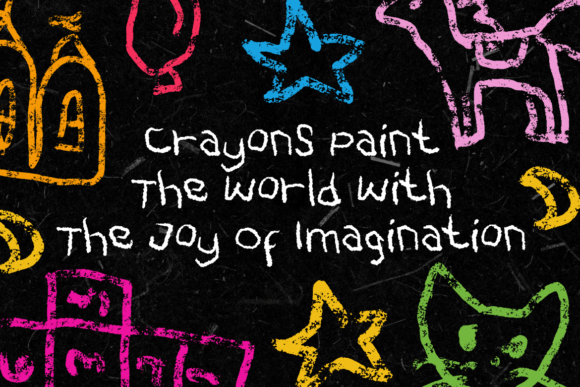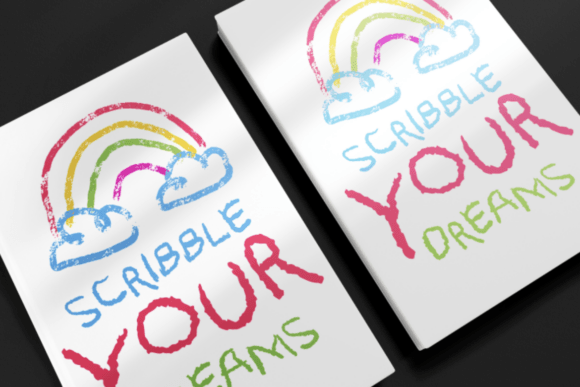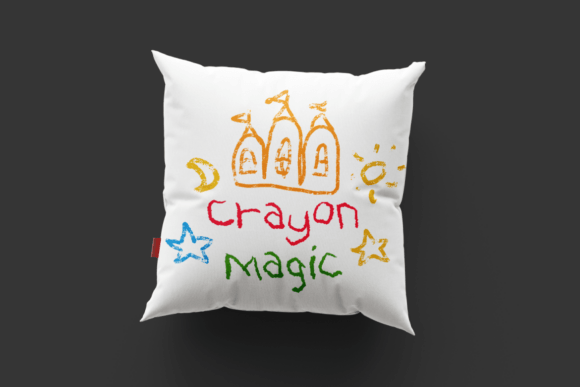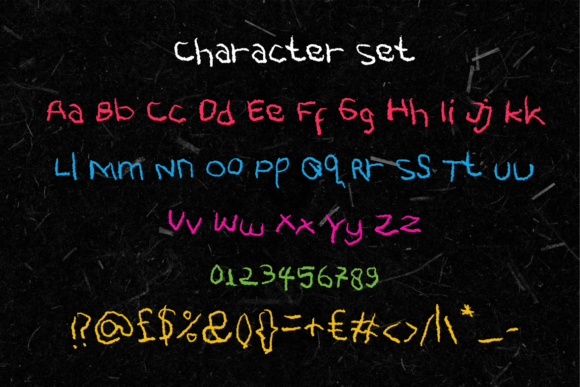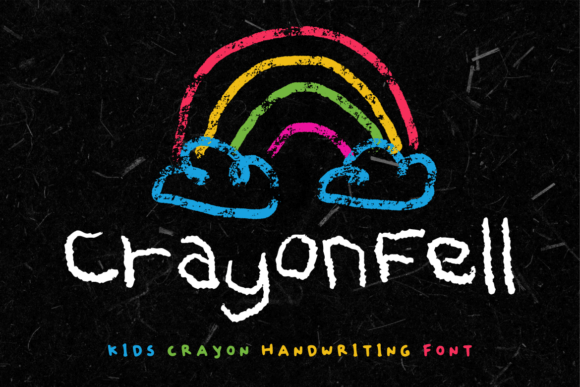
Introducing CrayonFell – Kids Crayon Handwriting Font
Are you looking for a font that can add a touch of childhood joy and creativity to your digital designs? Look no further than CrayonFell, a delightful typeface that captures the essence of crayon scribbles with its rounded, colorful, and quirky letterforms. This playful font is perfect for designers and crafters who want to infuse their work with a sense of innocence and fun.
What is CrayonFell?
CrayonFell is a kids crayon handwriting font that is meticulously crafted to mimic the look of real crayon strokes. Each character in this font is designed to bring back memories of childhood creativity and playfulness. The font’s handdrawn style makes it a standout choice for a wide range of projects, from logos and branding to crafting and invitation cards.
Features of CrayonFell
- Rounded and Quirky Letterforms: CrayonFell features rounded and quirky letterforms that are reminiscent of crayon scribbles.
- Colorful and Vibrant: The font’s colorful and vibrant style makes it perfect for designs that require a pop of color and creativity.
- Handdrawn Style: The font’s handdrawn style gives it an authentic and charming feel that is perfect for a wide range of projects.
- Versatile: CrayonFell is versatile and can be used in both digital and print media.
Use Cases for CrayonFell
CrayonFell is perfect for a wide range of projects, including:
- Logos and Branding: Use CrayonFell to create playful and memorable logos and branding materials.
- Crafting and Invitation Cards: Add a touch of whimsy and creativity to your crafting and invitation card designs.
- Posters and Titles: Use CrayonFell to create eye-catching posters and titles that grab attention.
- Business Materials: Add a playful touch to your business materials, such as brochures and flyers.
- Greeting Cards: Create fun and colorful greeting cards that are perfect for special occasions.
- Movie Titles: Use CrayonFell to create playful and eye-catching movie titles.
- Stickers and Book Covers: Add a touch of fun and creativity to your sticker and book cover designs.
- Magazines: Use CrayonFell to create playful and engaging magazine designs.
Why Choose CrayonFell?
There are many reasons why CrayonFell is the perfect choice for designers and crafters. Here are a few:
- Unique and Playful: CrayonFell is a unique and playful font that can add a touch of whimsy and creativity to your designs.
- Authentic and Charming: The font’s handdrawn style gives it an authentic and charming feel that is perfect for a wide range of projects.
- Versatile: CrayonFell is versatile and can be used in both digital and print media.
In conclusion, CrayonFell is a delightful typeface that can add a touch of childhood joy and creativity to your digital designs. With its rounded, colorful, and quirky letterforms, CrayonFell is perfect for designers and crafters who want to infuse their work with a sense of innocence and fun. Whether you’re designing for children or simply want to add a playful touch to your work, CrayonFell is the perfect choice.